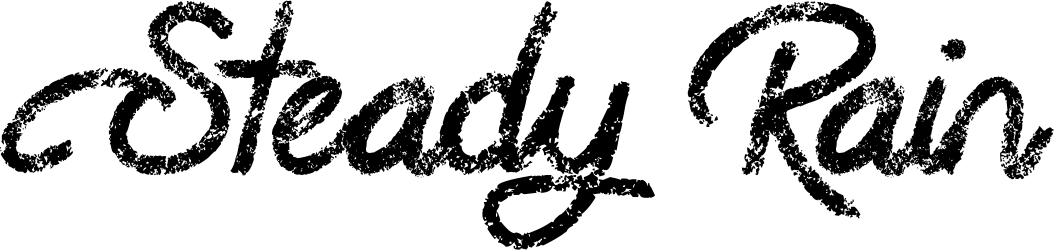
Steady Rain Font
If you are looking for a special font for your layouts, you may like to try this script font as soon as possible. This one sounds like you used chalk or a crayon to type your texts. Steady Rain is fantastic for books, magazines, posters, etc. Bear in mind that it does not support punctuation. Give this beach script font a try and enjoy the outcome.